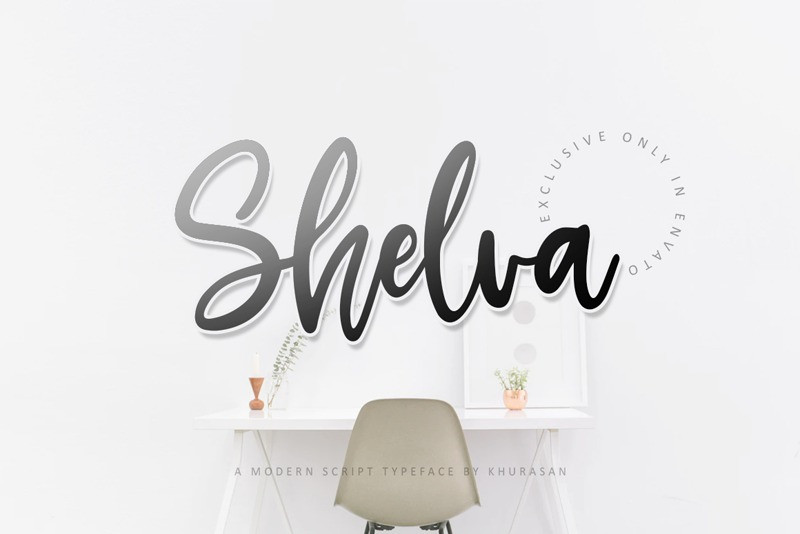
Shilva Handwritten Font
Introducing, Shilva Handwritten Font a fun script typeface with cheerful theme for your fun project. Shilva font suitable for logo, branding, greeting card, poster and any design that you create.